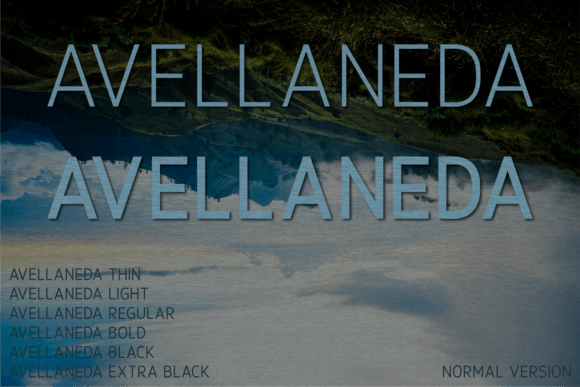
Where Elegance Meets Simplicity
Imagine the thrill of creating a new design project – the blank canvas, the endless possibilities, and the rush of bringing your vision to life. As a designer, you know that the right font can make all the difference in elevating your work and leaving a lasting impression on your audience.
Enter the Avellaneda Font, a stunning sans serif suite that embodies the perfect blend of contemporary style and luxurious appeal. With its five sleek weights, this versatile font family is designed to take your projects to the next level, whether you’re crafting a magazine, creating a logo, or designing a film poster.
For designers seeking to infuse their work with sophistication and simplicity, the Avellaneda Font is an invaluable asset. Its precision-engineered design ensures that every letterform is a masterclass in elegance, making it the perfect choice for anyone looking to add a touch of enduring allure to their designs.
Key Features of Avellaneda Font
- Unique Characteristics: Avellaneda Font is a sans-serif typeface designed for readability and versatility, making it suitable for various applications, including digital and print media.
Designer Review: Avellaneda Font
Overall, I was quite impressed with the Avellaneda font, and here’s why:
- ✨ Unique and stylish: Avellaneda’s blend of elegant and modern elements creates a truly unique aesthetic that can elevate any design project.
- ✨ Excellent for titles and headings: The font’s bold and striking personality makes it perfect for titles, headings, and other prominent text elements.
- ✨ Well-suited for digital design: Avellaneda’s clean lines and modern feel make it well-suited for digital design applications, such as web pages, mobile apps, and social media graphics.
- ⚠️ Limited legibility at smaller font sizes: While Avellaneda is stunning at larger font sizes, it can become difficult to read at smaller sizes, making it less suitable for body text.
- ⚠️ Not ideal for long blocks of text: Due to its bold and striking personality, Avellaneda can be overwhelming when used for long blocks of text, making it better suited for shorter text elements.
Overall, I would highly recommend the Avellaneda font for designers looking to add a touch of elegance and sophistication to their projects. While it may have some limitations, its unique style and versatility make it a valuable addition to any designer’s toolkit.
The Avellaneda Font is ideal for:
- Designing logos and branding materials
- Creating eye-catching headlines and titles
- Adding a touch of elegance to presentations and documents